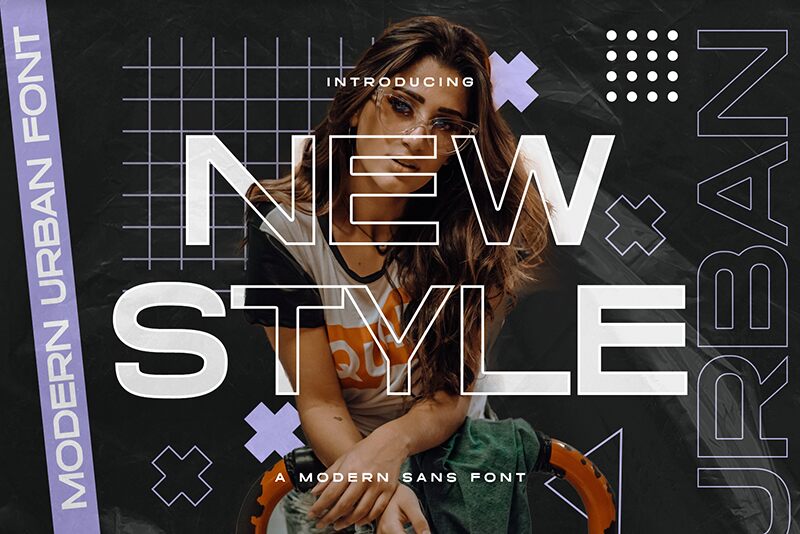
New Style Bold Outline, a distinct font created by Graphicxell, captivates with its striking outlined sans serif aesthetic. The expanded width and bold lines exude a sense of strength and modernity, while the clean, minimalist design lends an air of sophistication. This font's visual appeal lies in its ability to command attention, making it a compelling choice for branding, headlines, and impactful typographic elements.
Versatile and adaptable, New Style Bold Outline can elevate a wide range of design projects. Its bold, attention-grabbing presence makes it an excellent fit for logos, posters, and other high-impact visual communications. Additionally, the font's legibility and clarity make it a practical option for digital interfaces, signage, and editorial layouts, where readability is paramount.
New Style Bold Outline